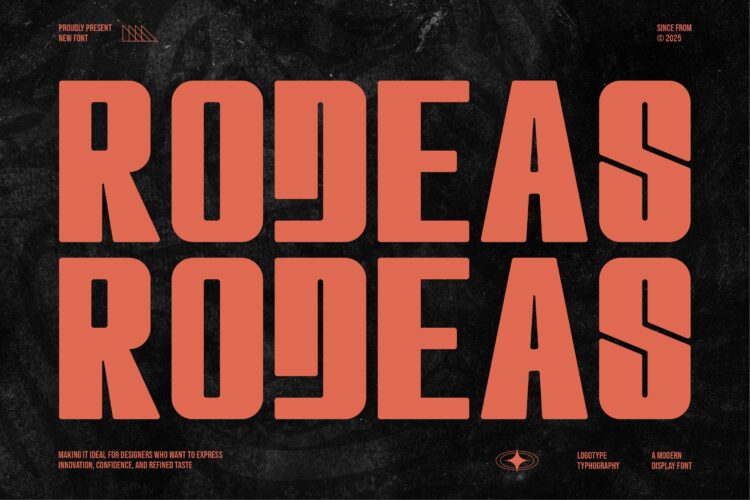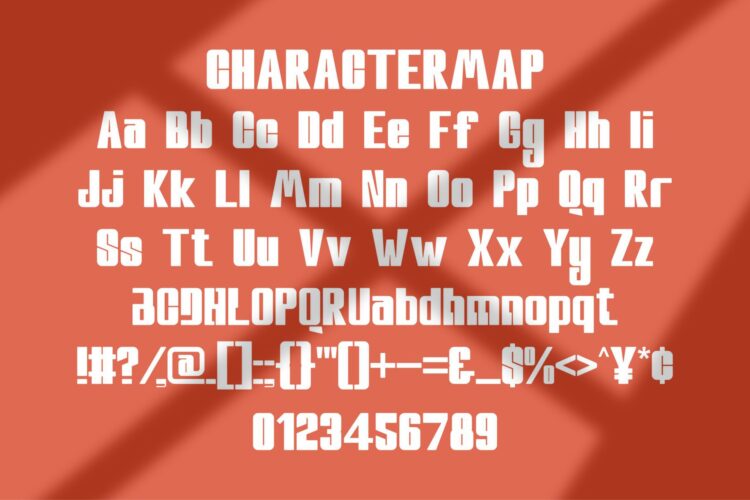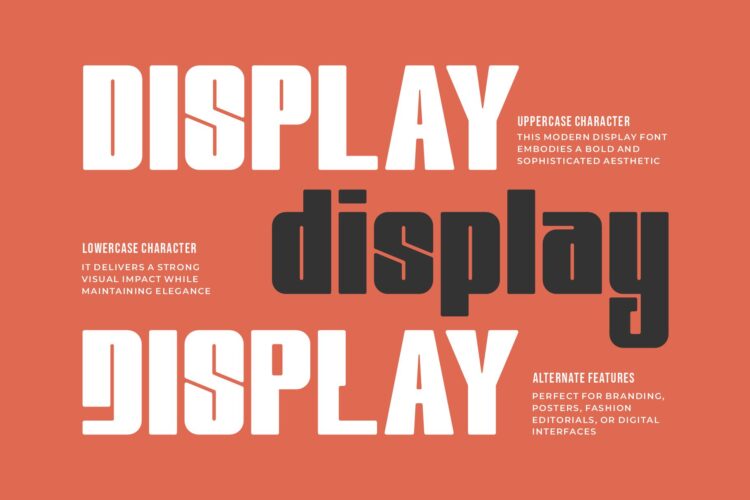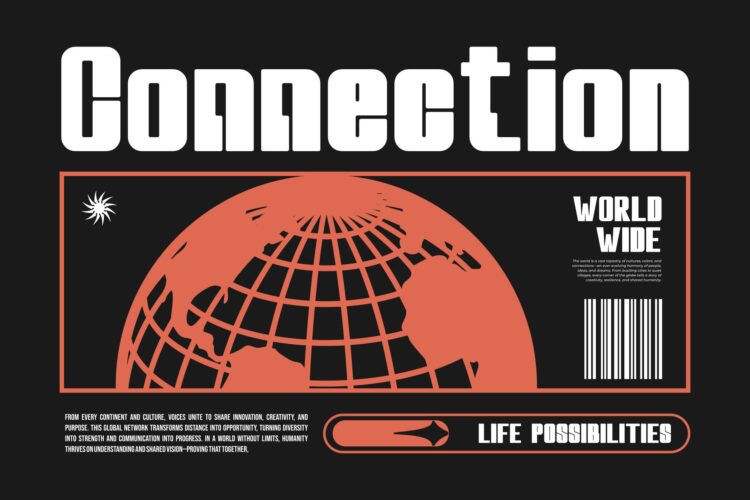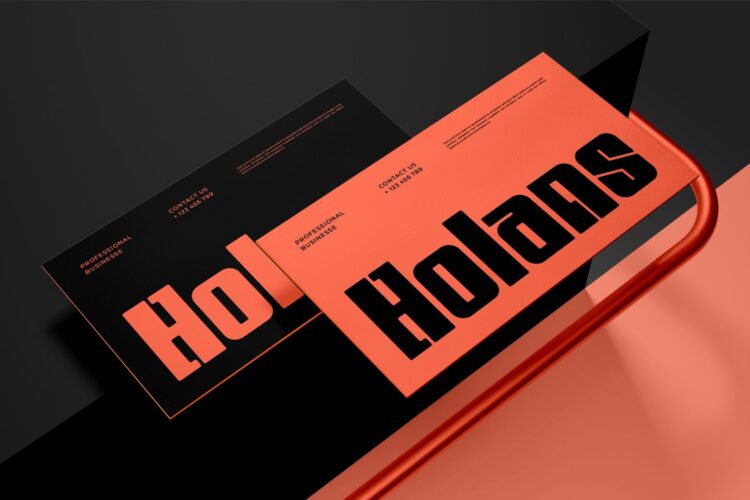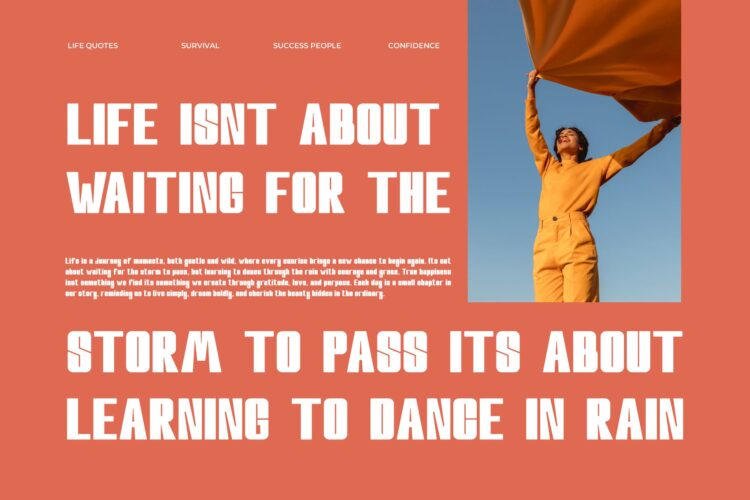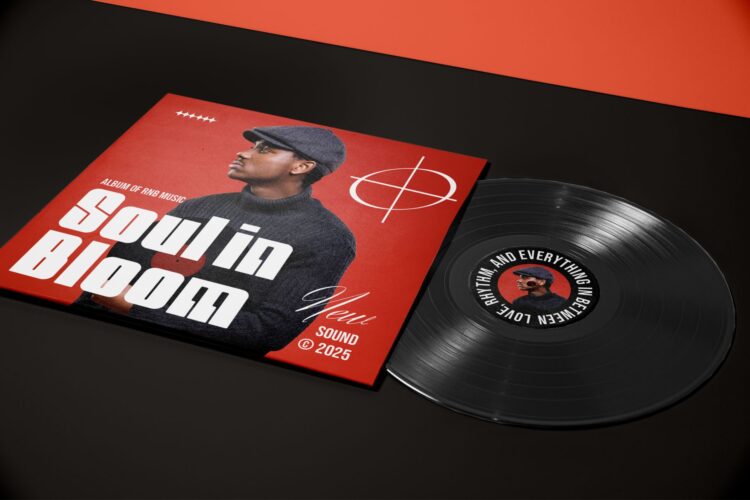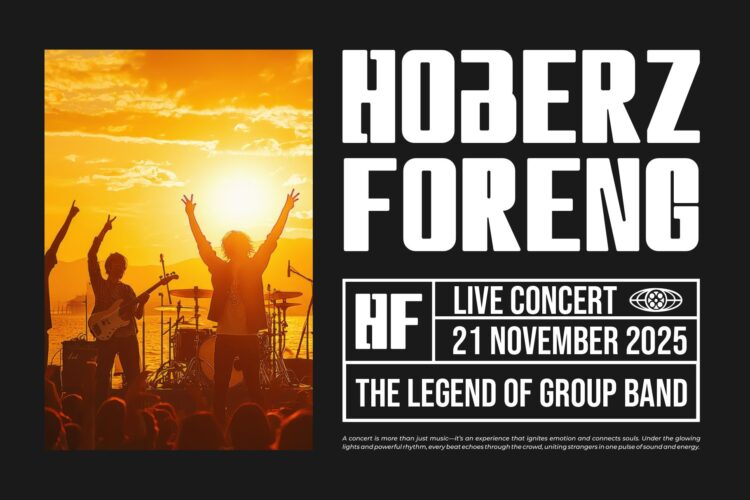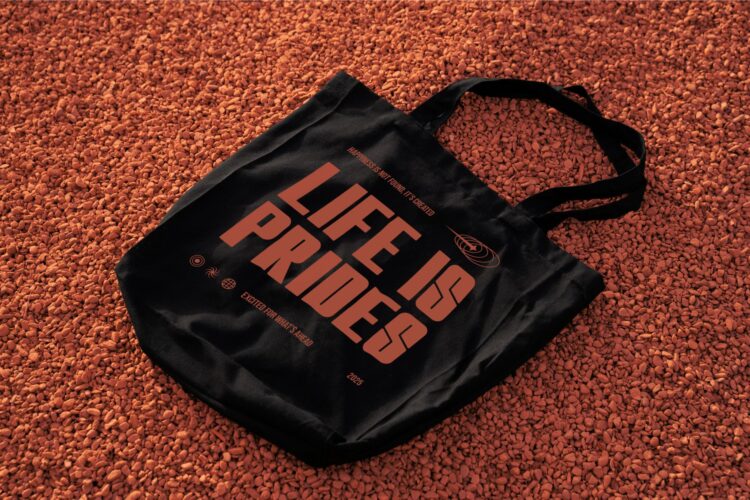
Rodeas
Rodeas Sans Serif is a vintage display sans serif font type for all branding and logo designs. This vintage display sans serif font has a beautiful character. This font is suitable for invitation card designs, cool logos, movie titles, movie names, business cards, book titles, brand names, and various other designs. Rodeas Sans Serif is a smooth sans serif font that exudes sophistication and the moment. Its stylish alternate make this font a perfect partner for any project.
– Alternate
Rodeas || Vintage Display Font